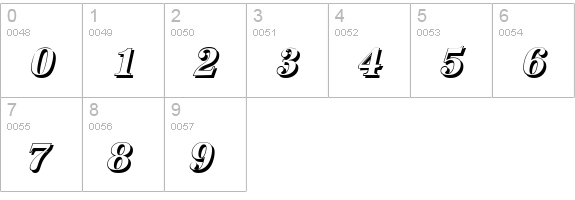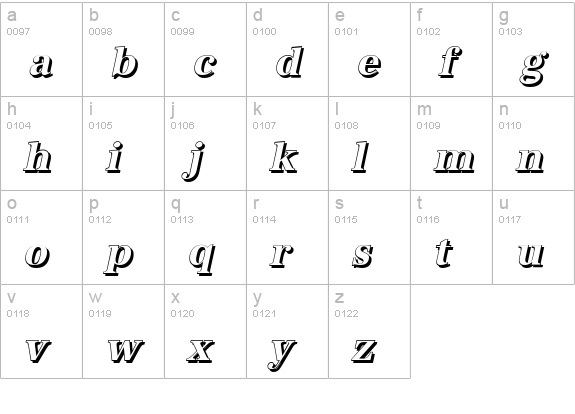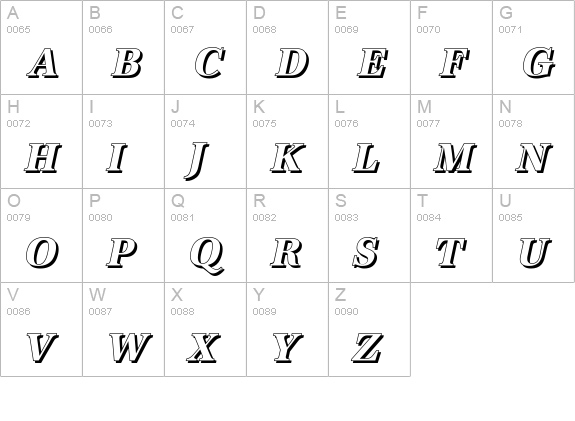
AntiquaSh-Cd-BoldItalic is a stunning and elegant font that exudes sophistication and class. This bold italic typeface combines traditional elements with a modern twist, making it perfect for adding a touch of luxury to any design project. Its unique blend of sharp serifs and flowing curves creates a harmonious balance that is both eye-catching and easy to read. What sets AntiquaSh-Cd-BoldItalic apart is not only its striking aesthetics but also its versatility. Whether you're designing a poster, logo, website, or any other creative project, this font will elevate your work to the next level. Its bold and italicized style commands attention and adds a sense of drama and flair to your text. And the best part? AntiquaSh-Cd-BoldItalic is available for free download at FontsMarket.com. So go ahead and enhance your designs with this exquisite font today!